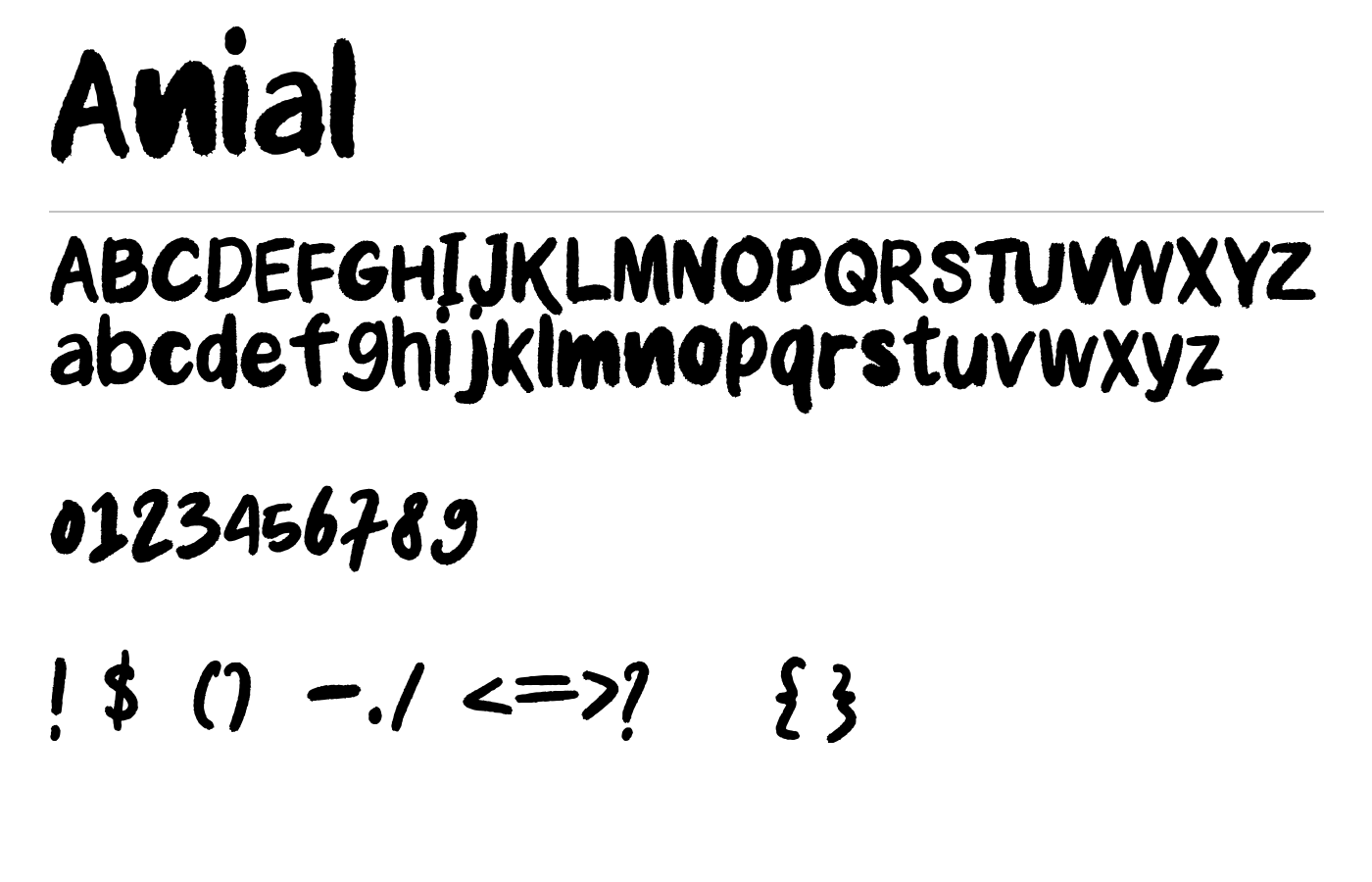
Anial is a bold, hand-drawn sans serif font that exudes a playful and informal character. Its uneven strokes and organic shapes create a friendly, approachable feel, making it ideal for creative projects, casual branding, and eye-catching headlines where a personal, human touch is desired. This font works well in designs aiming to evoke warmth and spontaneity rather than strict formality.
Anial Font